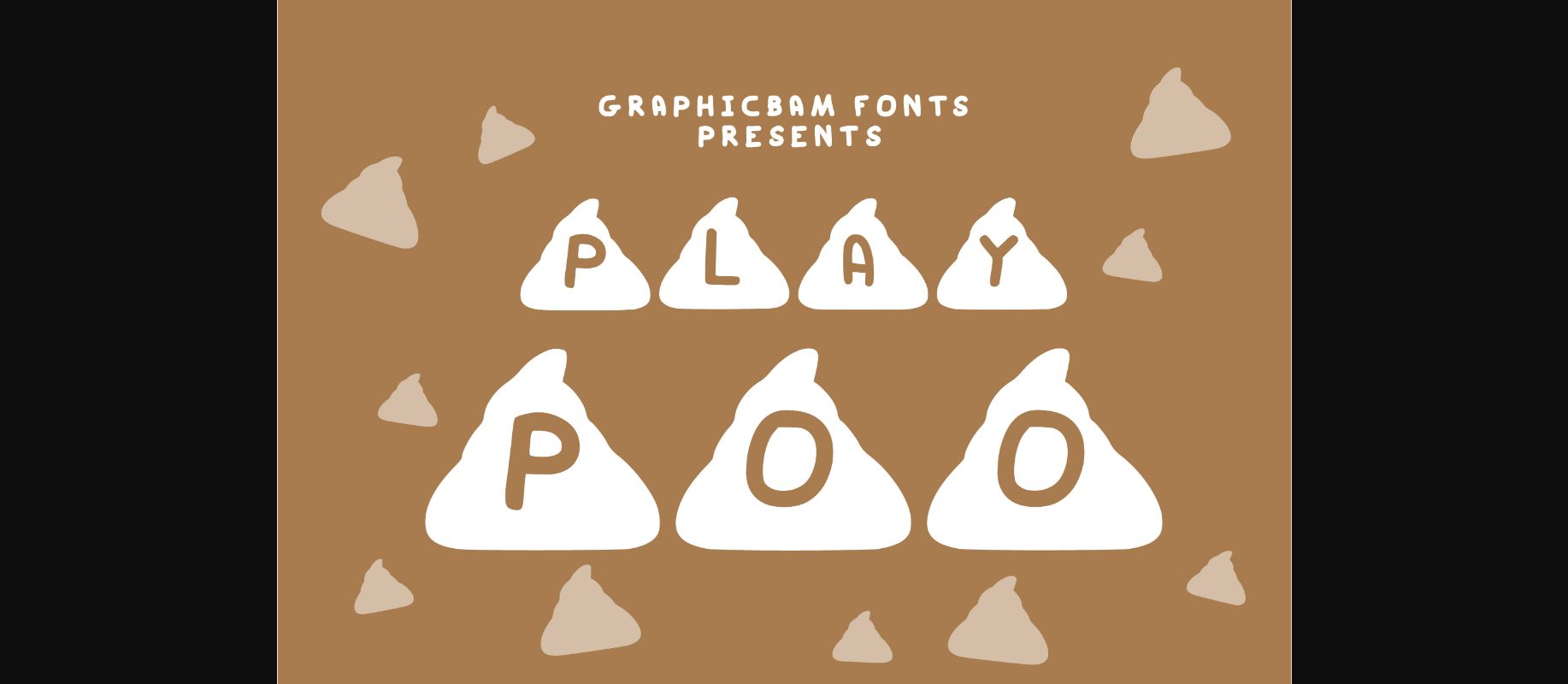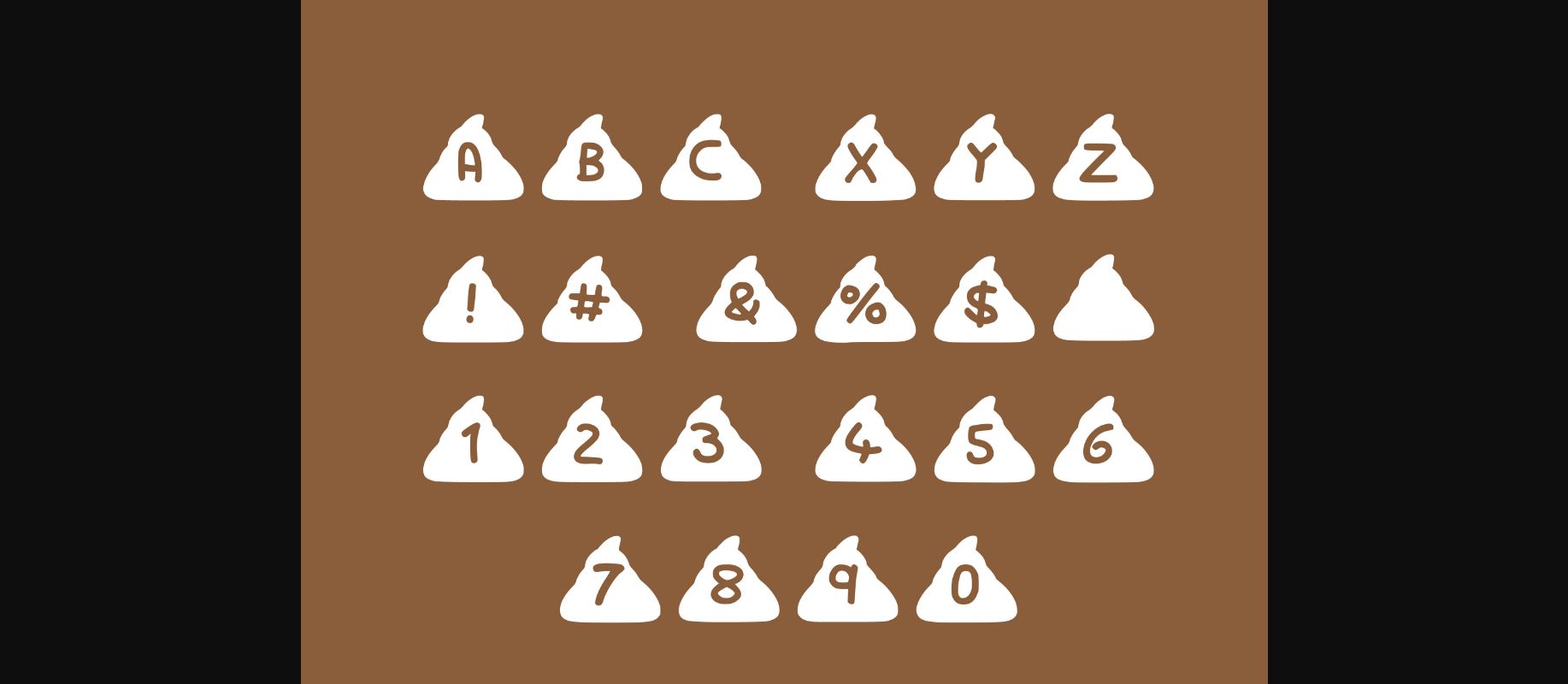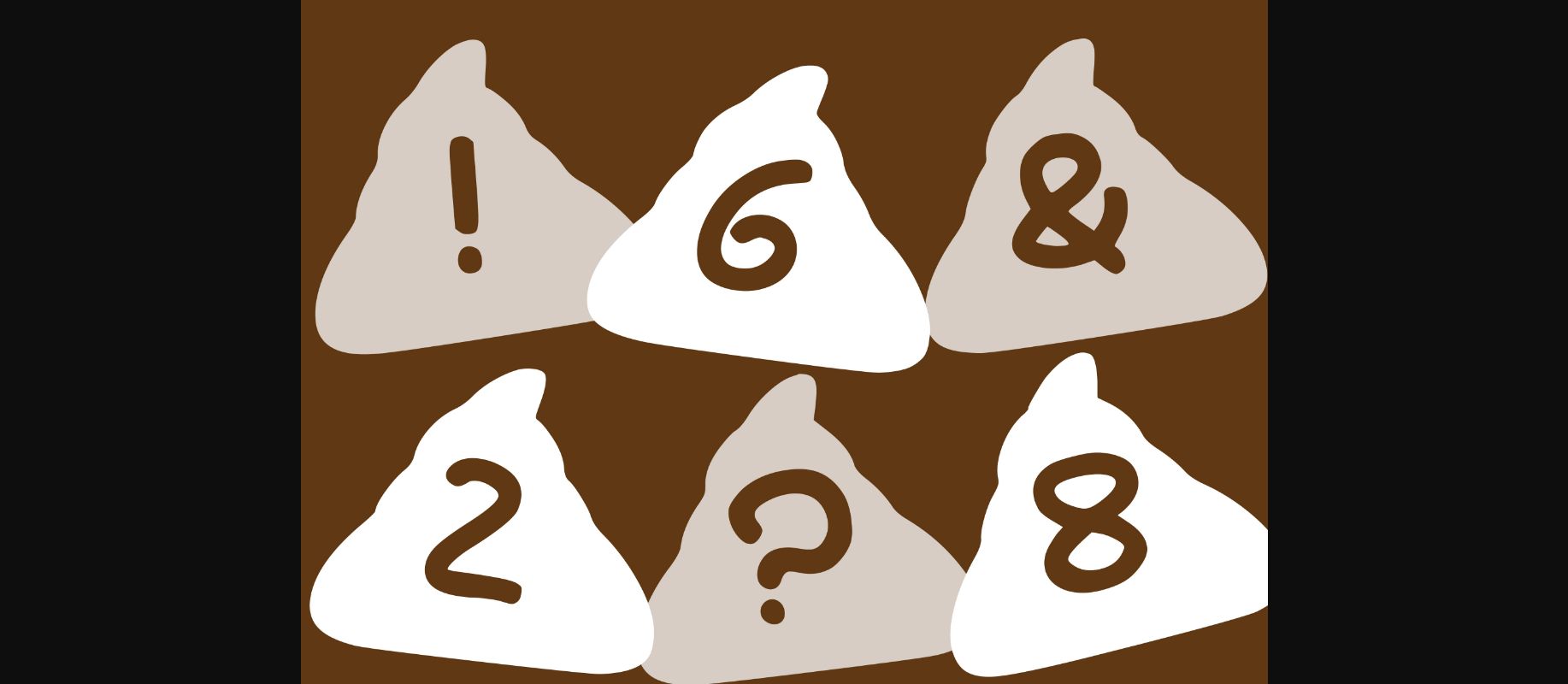
About Play Poo Font
Play Poo is a cool and funky decorative font. Whether you’re using it for crafts, digital design, presentations, or making greeting cards, this font has the potential to become your favorite go-to font, no matter the occasion!